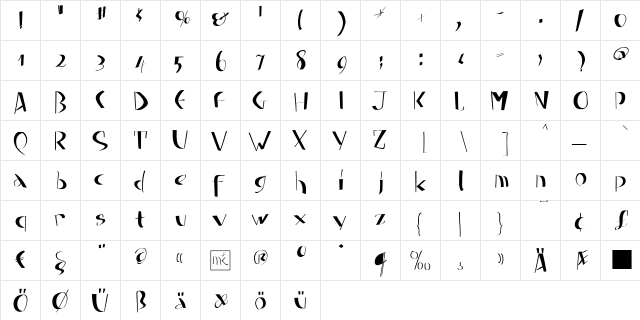
FatFineFree Regular
Design Context for FatFineFree Typeface
FatFineFree is a composed and adaptable typeface that performs quietly and consistently across a wide range of design contexts.
Pro Tip: Use FatFineFree in both headline and body roles to test its range before committing to a single application.